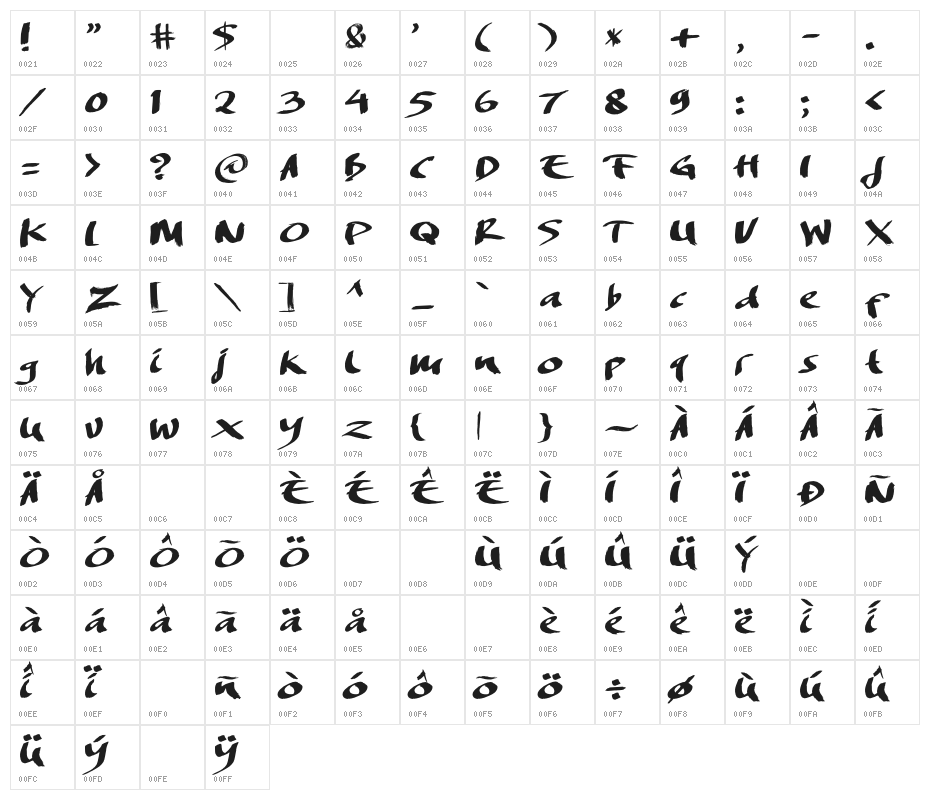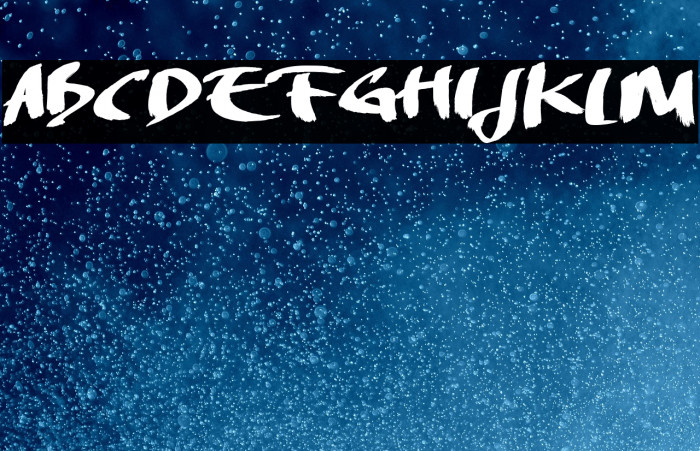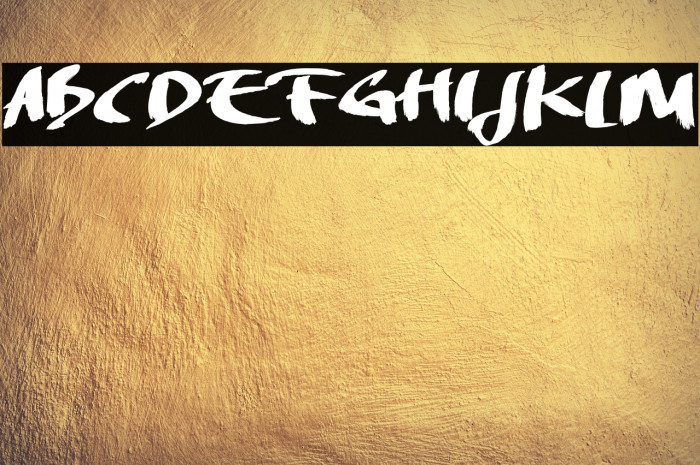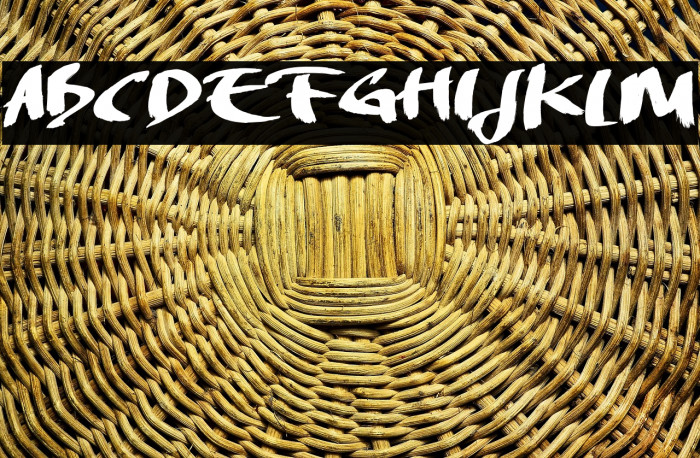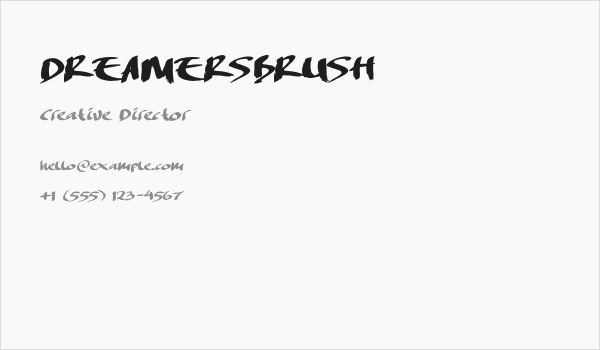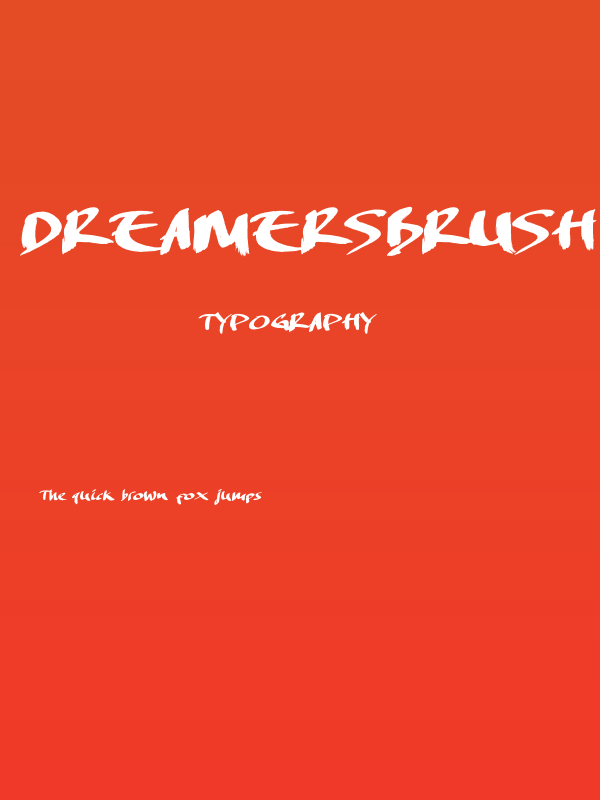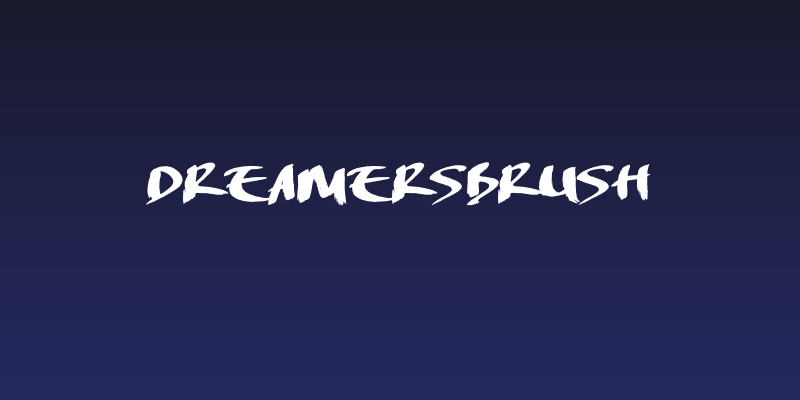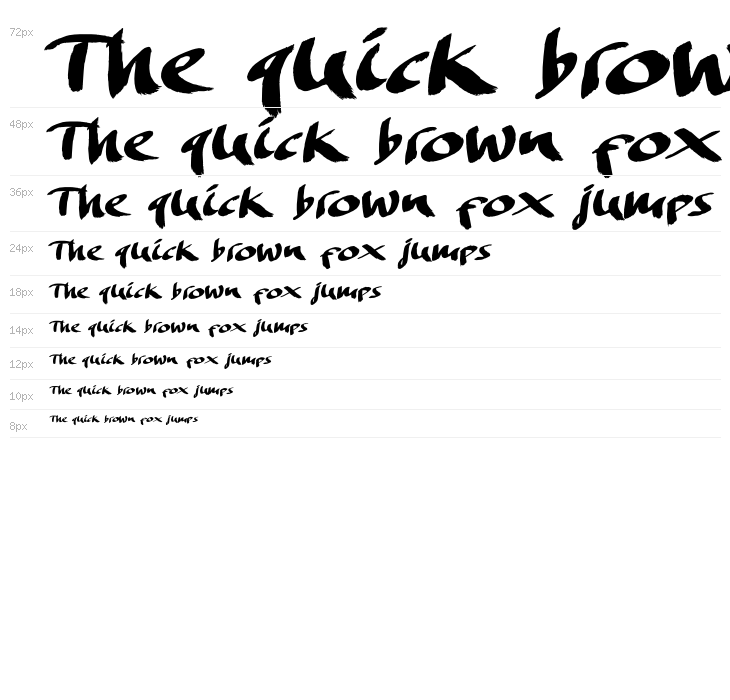
DREAMERSBRUSH Font
DREAMERSBRUSH Description
This font exudes a bold and dynamic brush style, characterized by its thick, expressive strokes that convey a sense of energy and movement. The uppercase and lowercase letters are crafted with a fluidity that mimics the natural flow of handwriting, while maintaining a consistent weight throughout. The numerals and special characters are equally expressive, adding to the font's overall artistic appeal. The brush-like texture gives it a handcrafted feel, making it ideal for projects that require a personal touch. Its unique style is both eye-catching and versatile, suitable for a variety of creative applications.
| Proposed Projects | Ideal for branding, posters, invitations, and any project requiring a personal, artistic touch. |